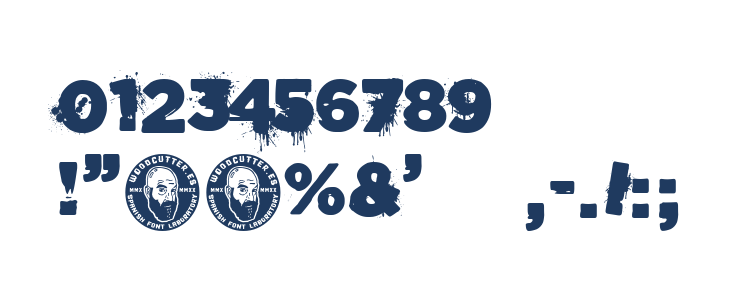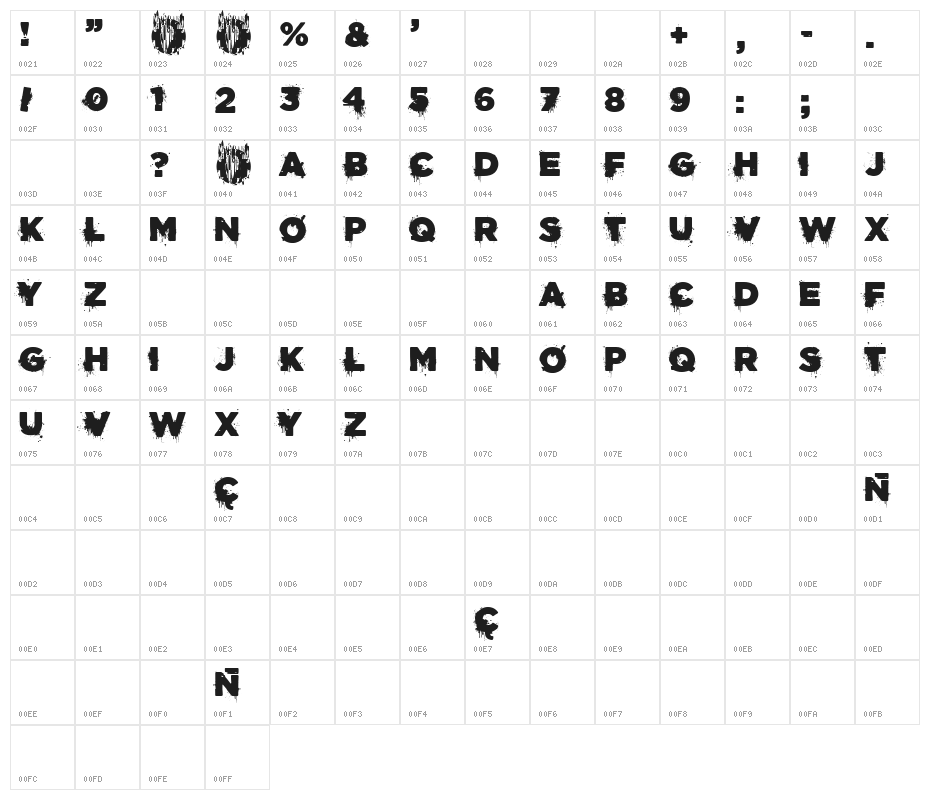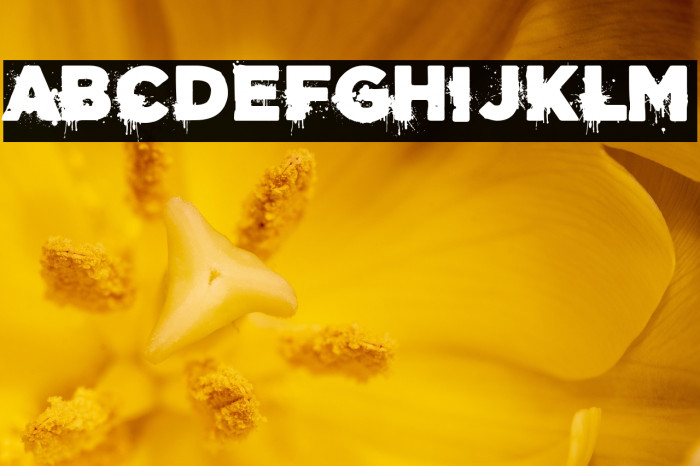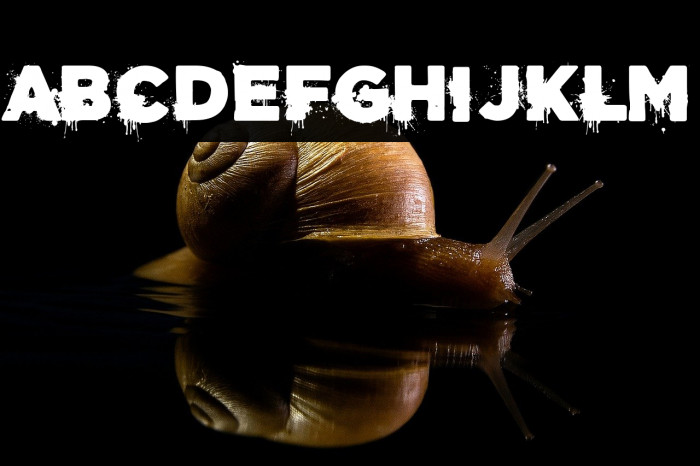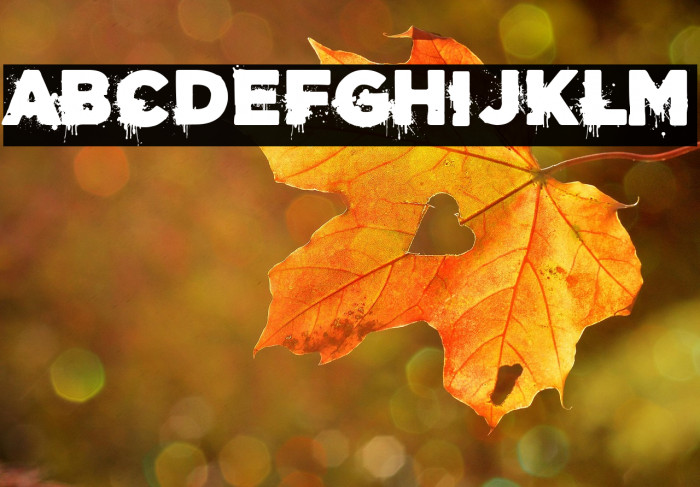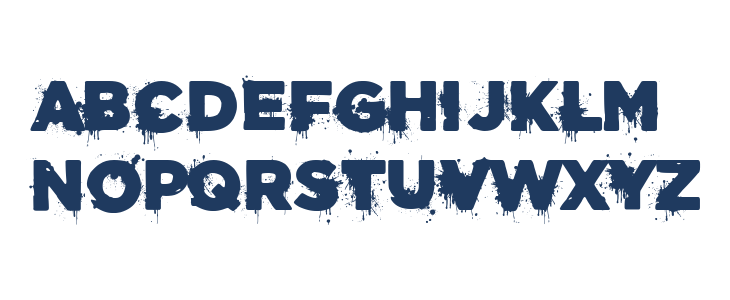
Acero y Sangre Font
Acero y Sangre Description
This font features a bold and rugged design with a distressed, grunge aesthetic. The characters appear as if they are splattered with ink or paint, giving them a raw and edgy look. The uppercase letters are prominent and assertive, while the numbers and special characters maintain the same gritty style. This font is ideal for projects that require a strong, impactful visual presence, such as posters, album covers, or branding for edgy or alternative products.
| Overall Style | Grunge, Edgy |
| Proposed Projects | Ideal for posters, album covers, and edgy branding. |